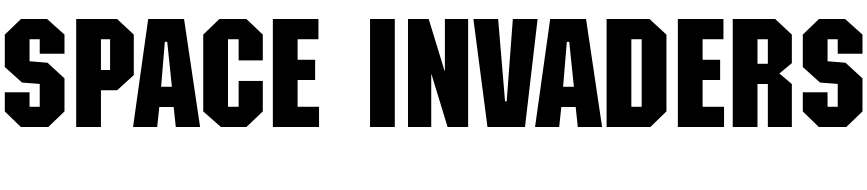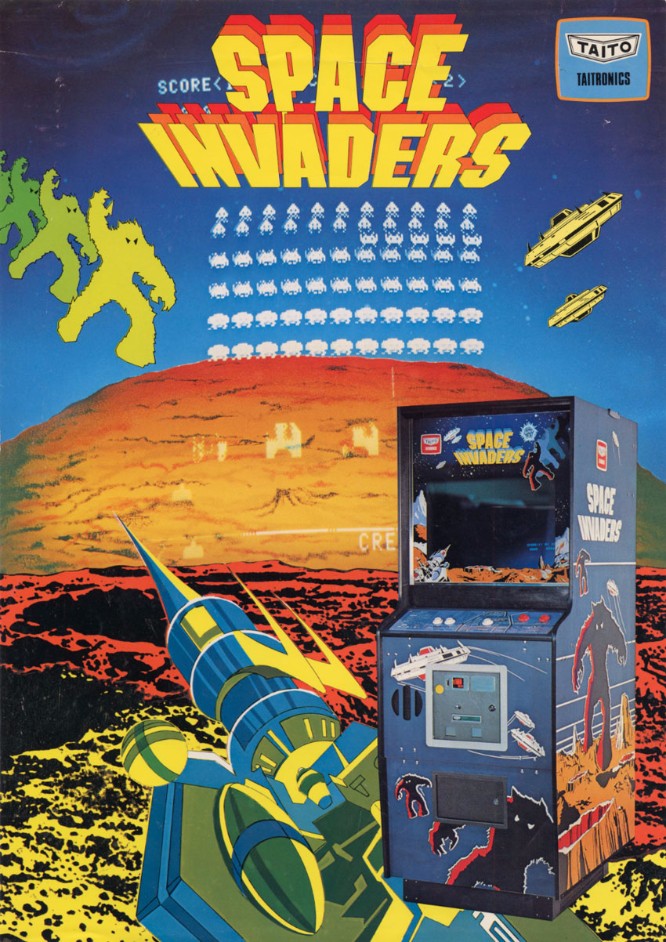
Space Invaders Font
Fonts in UseSpace Invaders is a classic arcade video game released in 1978 by Taito. In the game, players control a laser cannon and must destroy waves of alien invaders while avoiding their attacks.
The video game's promotional flyer probably featured the bold, geometric all-caps typeface called ITC Machine, created by Bonder and Carnase. For a free alternative, Atrox can also be downloaded free of cost from the Fonts Used Section.